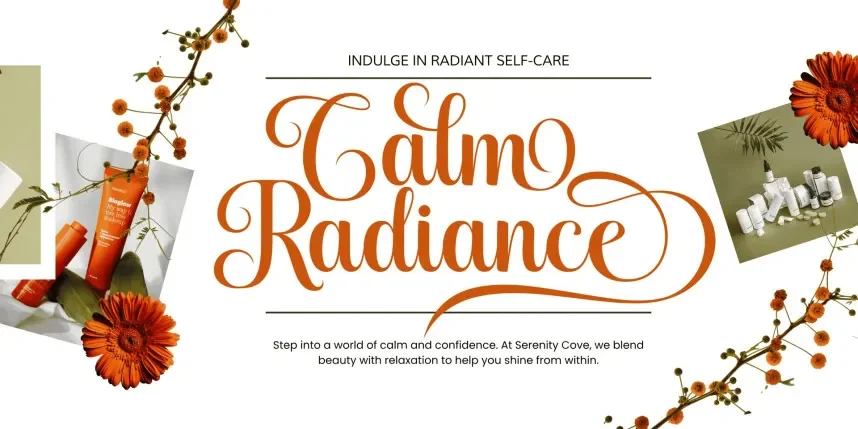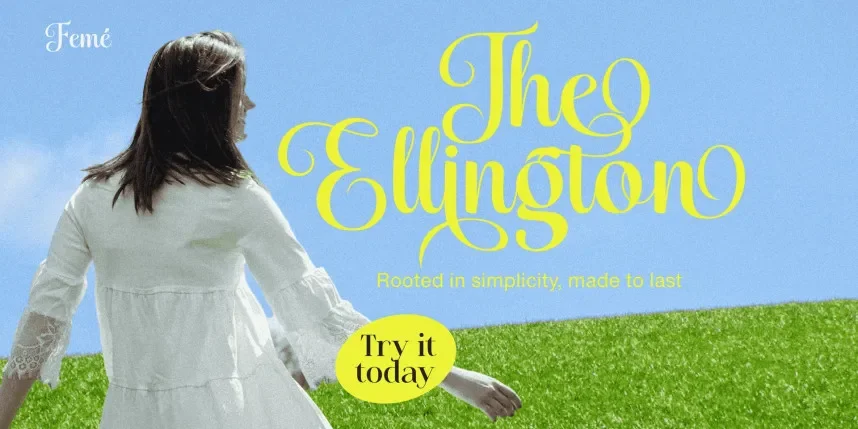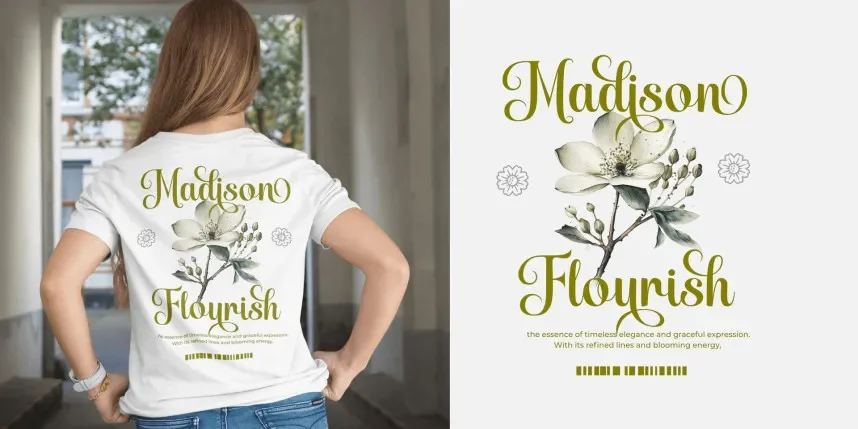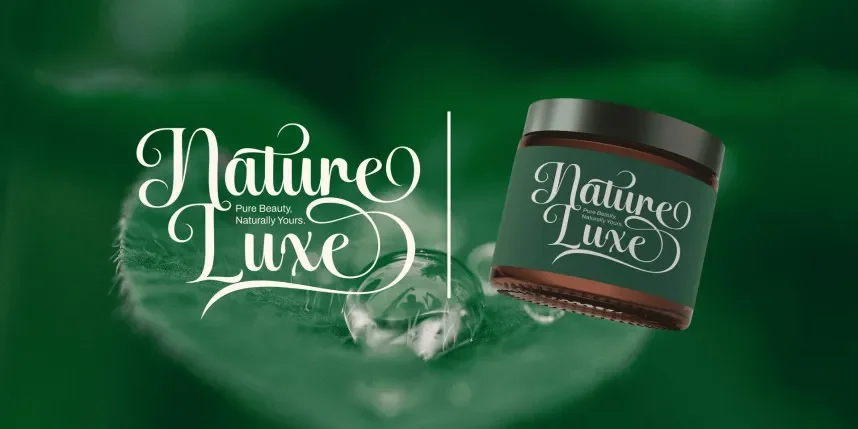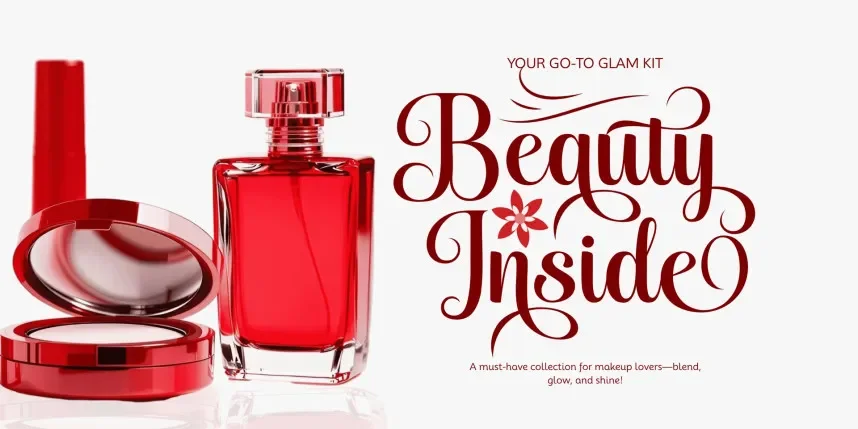
Holstein Script Font is a flowing script typeface designed to capture the essence of handwritten elegance. Its smooth curves and varied stroke widths give it a dynamic and natural appearance, making it ideal for designs that require a personal touch.
Best used for invitations, branding, and wedding stationery, Holstein Script Font pairs well with simple sans-serif fonts for body text. Available in TTF and OTF formats, it includes a commercial-use license. Always check the license for commercial projects.